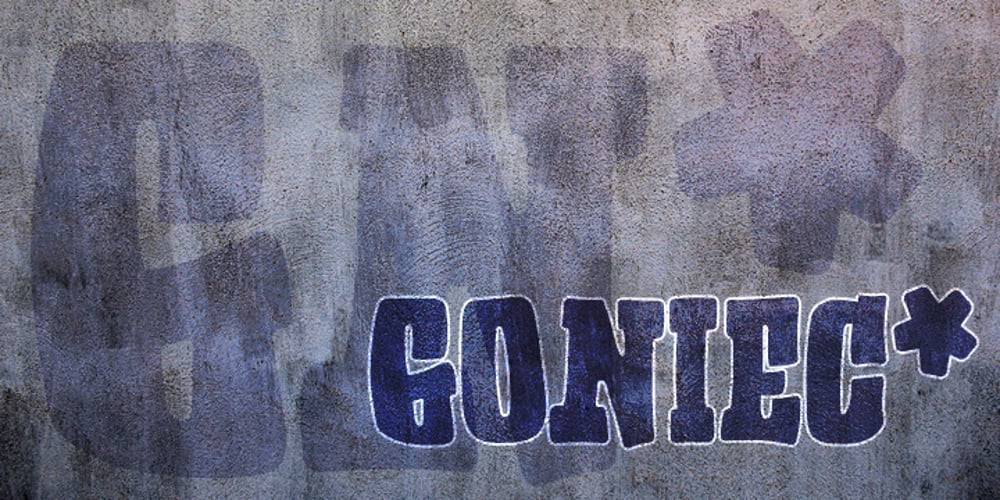
Goniec
Goniec font
Goniec Font Family was designed by Bartek Nowak and published by GRIN3 (Nowak). Goniec contains 1 styles and family package options. Goniec is a heavy, graffiti inspired font. Language support includes Western, Central and Eastern European character sets, as well as Baltic and Turkish language.